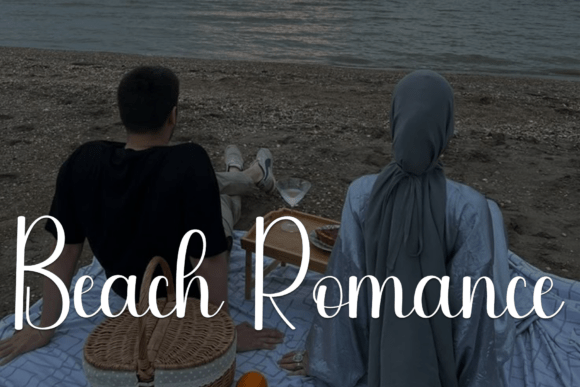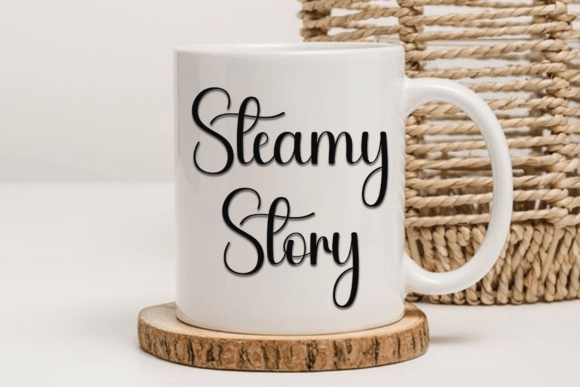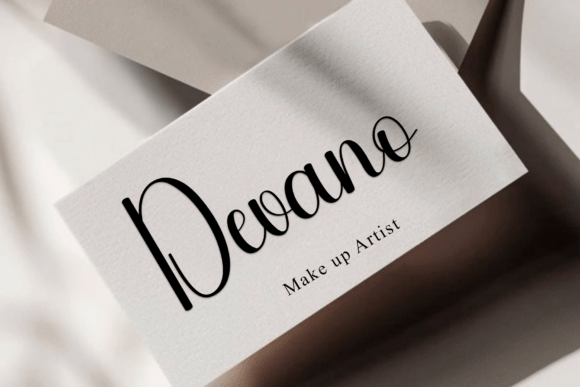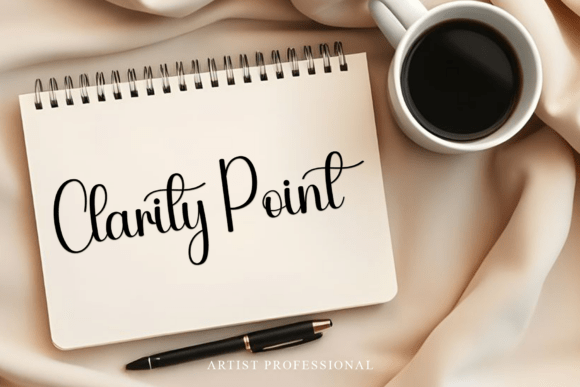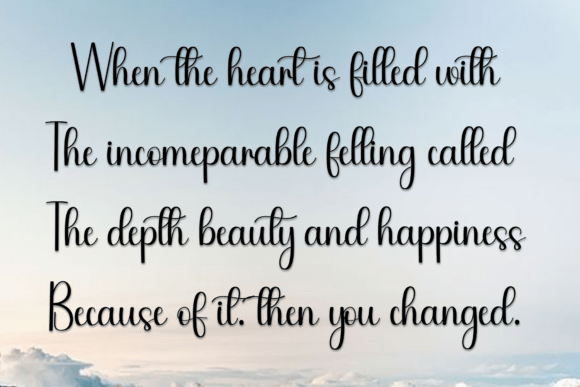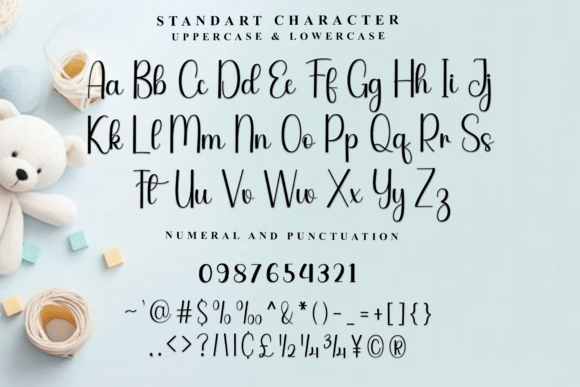
The Perfect Campsite for Your Designs: Introducing the Camping Ground Font
Have you ever found yourself sitting by a campfire, surrounded by nature’s beauty, and suddenly, a spark of creativity ignites within you? For designers, this feeling is a constant companion, and the right tools can make all the difference. Enter the Camping Ground Font, a stunning and versatile typeface designed to capture the essence of the great outdoors.
With its soft, unique strokes and distinctive character, the Camping Ground Font is the perfect companion for any design project. Whether you’re crafting a logo, designing a brochure, or working on a creative writing project, this font is sure to bring your vision to life. Its compatibility with various applications makes it a valuable asset for designers, allowing you to work seamlessly across different platforms.
Camping Ground Font Key Features
- Unique Characteristics: Camping Ground Font features a unique, hand-drawn design with a natural, outdoorsy feel, making it perfect for camping, outdoor, and nature-themed projects.
- Language Support: The font supports a wide range of languages, including English, Spanish, French, German, Italian, and many others.
Camping Ground Font Review
I recently had the chance to work with the Camping Ground font, and I must say it’s a mixed bag. Let’s start with what works well:
- ✨ The font’s natural, earthy feel is perfect for outdoor-themed projects or designs that need a rustic touch.
- ✨ The font is highly legible, making it easy to read even at smaller font sizes.
- ✨ The font’s weight and line variation add a nice level of sophistication to the overall design.
- ⚠️ The font’s character set is limited, which may cause issues when working with non-ASCII characters.
- ⚠️ The font’s stylistic alternates can be a bit inconsistent, which may affect the overall design’s cohesion.
- ⚠️ The font may not be suitable for projects that require a high level of precision, such as technical documentation or academic papers.
Overall, I’d say the Camping Ground font is a great choice for designers looking to add a touch of rustic charm to their projects. While it may have some limitations, its unique character and high legibility make it a solid addition to any font collection.
The Camping Ground Font is ideal for outdoor-themed projects, such as:
- Camping and hiking brochures
- Outdoor apparel and accessories branding
- National park and wildlife conservation materials
Remember to use the font consistently throughout your project to create a cohesive and professional look.